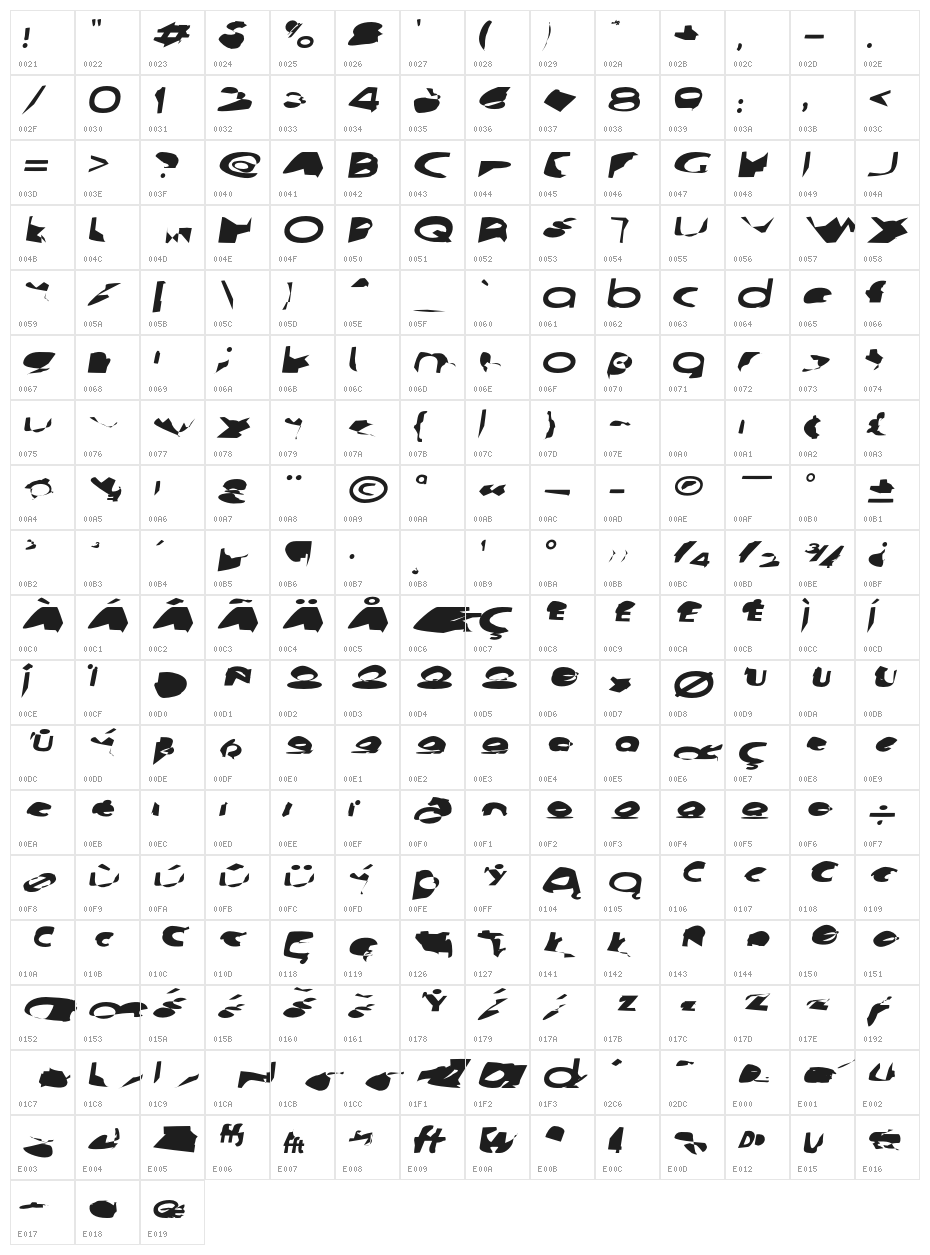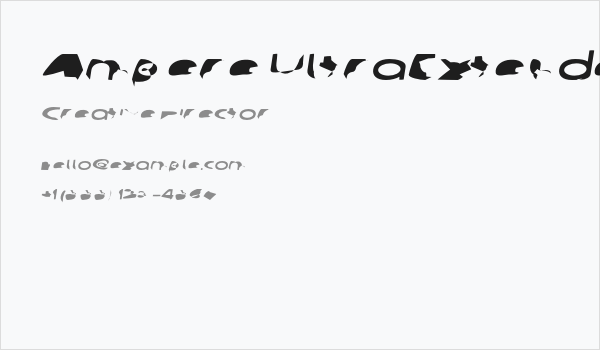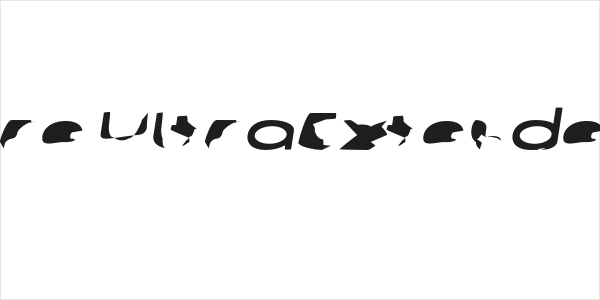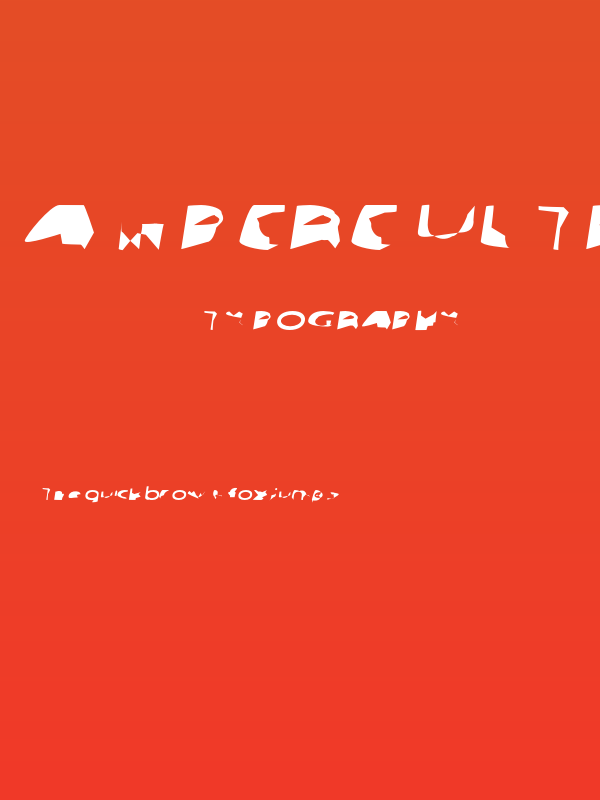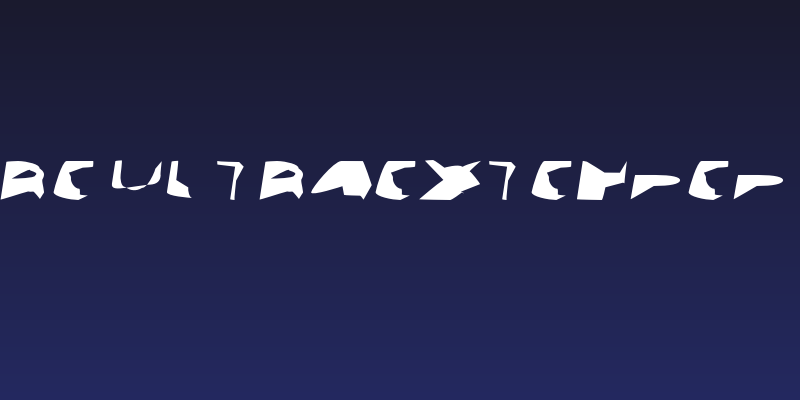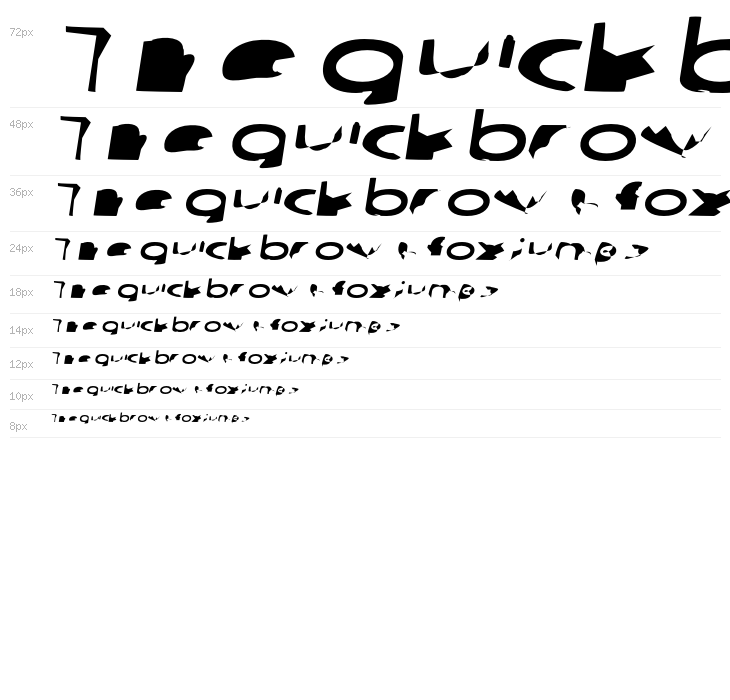
Ampere UltraExtended Italic Font
Ampere UltraExtended Italic Description
This font features a highly stylized and abstract design, characterized by its ultra-extended and italicized form. The characters are bold and have a dynamic, flowing appearance, with exaggerated curves and angles that create a sense of movement. The uppercase and lowercase letters maintain a consistent style, with some characters appearing fragmented or distorted, adding to the font's unique and artistic flair. The numerals and special characters follow the same design principles, ensuring a cohesive look across all glyphs. This font is ideal for creative projects that require a bold and unconventional aesthetic.
| Proposed Projects | Ideal for artistic posters, album covers, modern branding, and experimental design projects. |